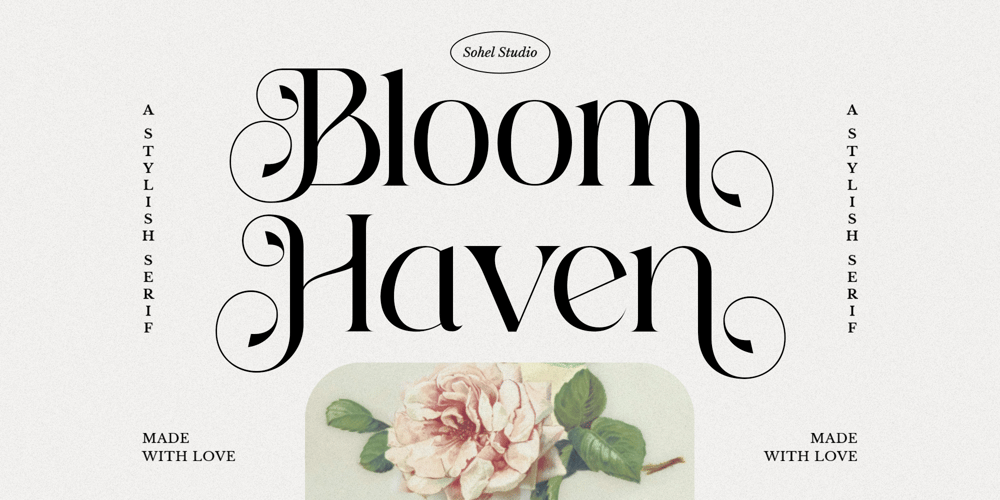
Bloom Haven
Bloom Haven font
Bloom Haven Font Family was designed by Akhmad Husain Rifa’i and published by Sohel Studio. Bloom Haven contains 1 styles and family package options. Introducing Bloom Haven, a thin elegant serif font designed to bring a touch of sophistication and uniqueness to your projects. With its refined serifs and exquisite letterforms, Bloom Haven is perfect for designers looking to elevate their work with a font that embodies elegance and style.Bloom Haven features unique alternates and ligatures, providing you with a versatile toolkit to create beautiful and distinctive typography. The font’s delicate strokes and modern minimalism make it ideal for a wide range of design applications, from wedding invitations and branding to editorial layouts and social media graphics.Inspired by classic serif fonts and infused with a contemporary flair, Bloom Haven offers a timeless yet modern aesthetic. Its elegant design makes it perfect for high-end projects that require a premium and sophisticated touch.Whether you’re working on a love-themed project, creating fancy event invitations, or designing for a chic, tropical setting, Bloom Haven adds a touch of grace and style that stands out. The font’s versatility and unique features ensure that your designs are always fresh and captivating.Discover the elegance and modern beauty of Bloom Haven, a serif font that combines thin, graceful lines with unique alternates and ligatures to create a truly unique and stylish typographic experience.